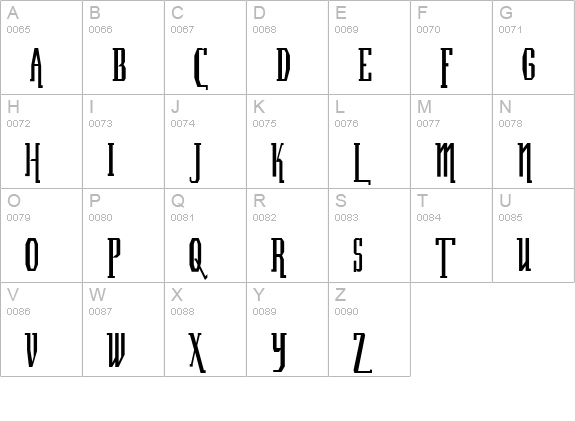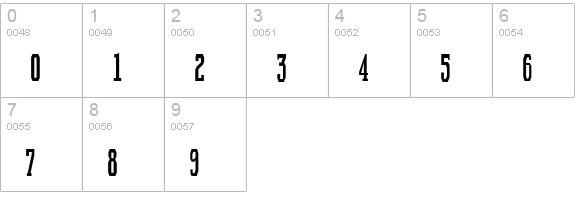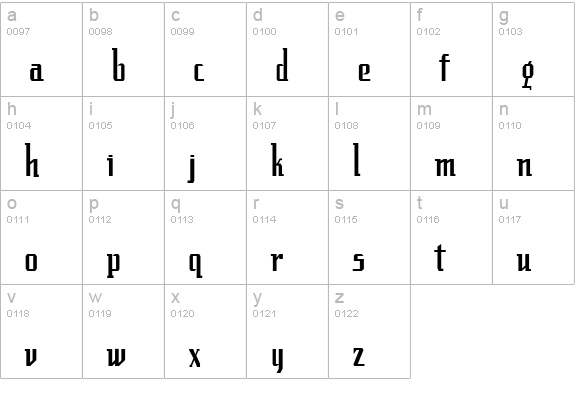
Luncheonette Font Details
Luncheonette font is a delightful and charming typeface that exudes a sense of warmth and nostalgia. Its whimsical curves and playful serifs give off a cozy and inviting vibe, perfect for adding a touch of personality to your designs. Whether you're working on a vintage-inspired project or looking to infuse a bit of fun into your branding, Luncheonette font is sure to make a statement. The best part about Luncheonette font is that it is free to download at FontsMarket.com. This means you can easily access this unique and versatile font without breaking the bank. With its wide range of glyphs and ligatures, Luncheonette font offers endless possibilities for creating eye-catching typography that stands out from the crowd. So why wait? Add a touch of whimsy to your designs with Luncheonette font today, and let your creativity soar. Download it for free now at FontsMarket.com and start exploring the endless design possibilities that this charming font has to offer.